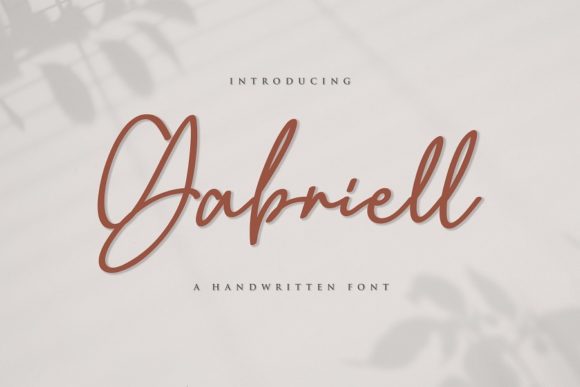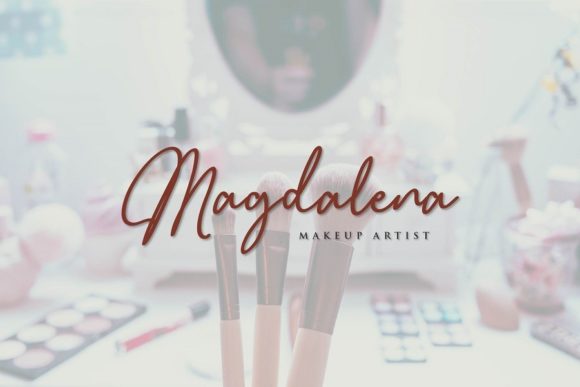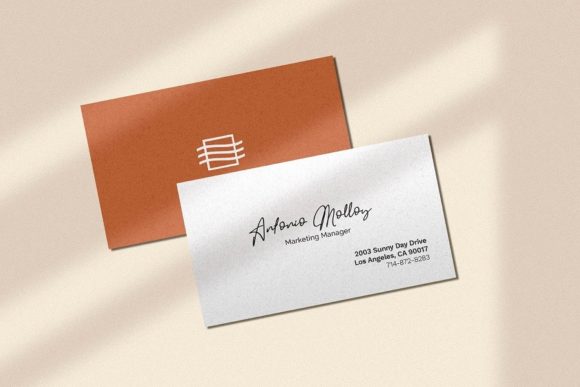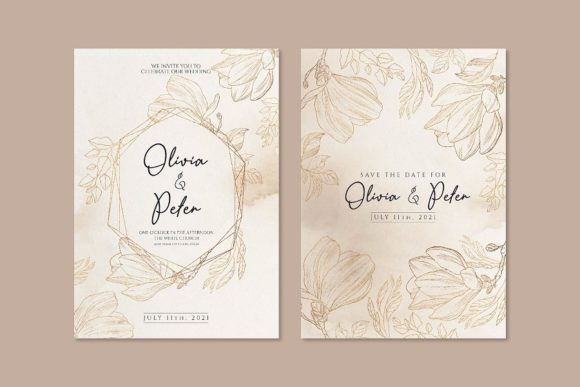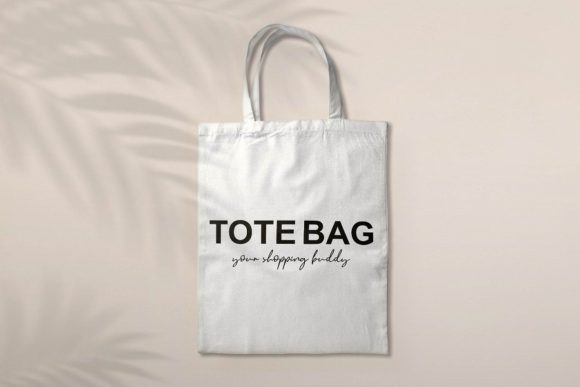
About Gabriell Font
Gabriell is a sweet, whimsical, flowing and thin script font. Featuring characters that dance along the baseline, this font will add a luxury spark to any design project that you wish to create!